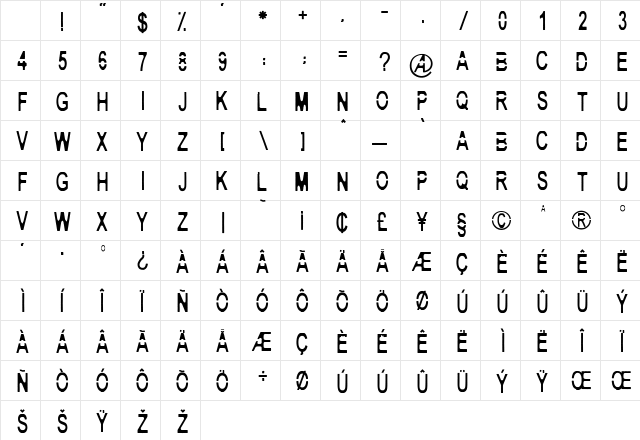
Yes, Sir! is a composed and adaptable typeface that performs quietly and consistently across a wide range of design contexts.
Pro Tip: Use Yes, Sir! in both headline and body roles to test its range before committing to a single application.